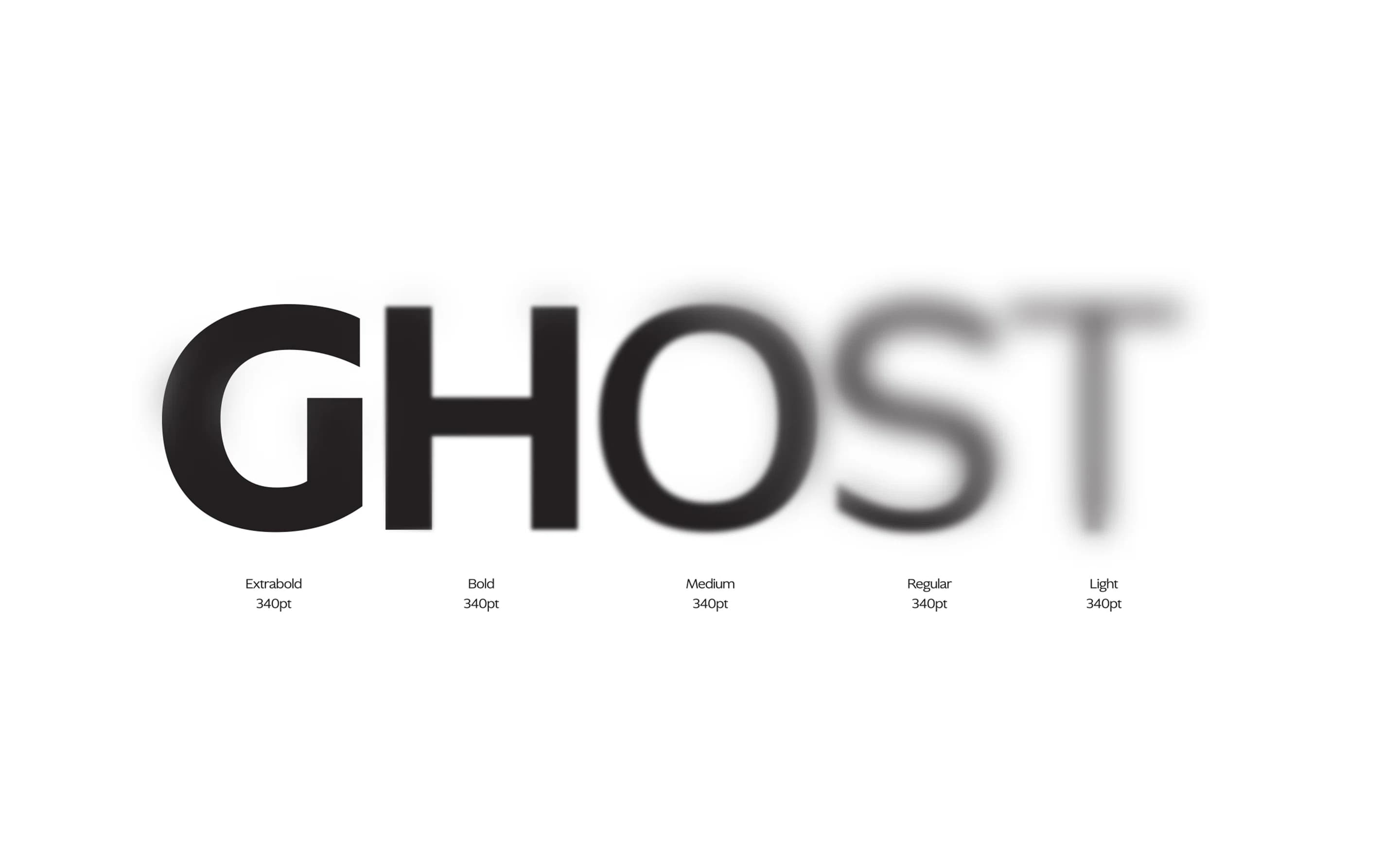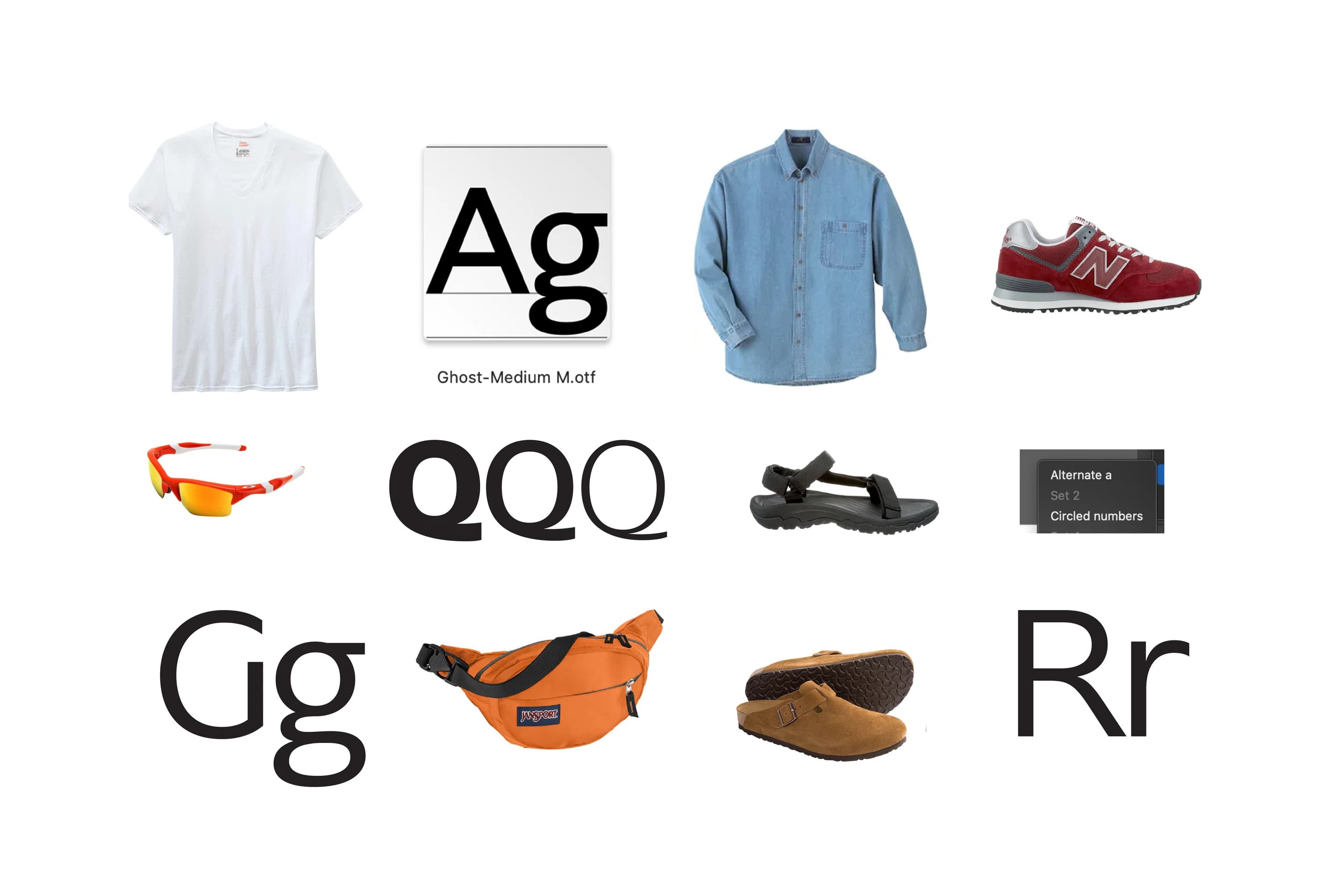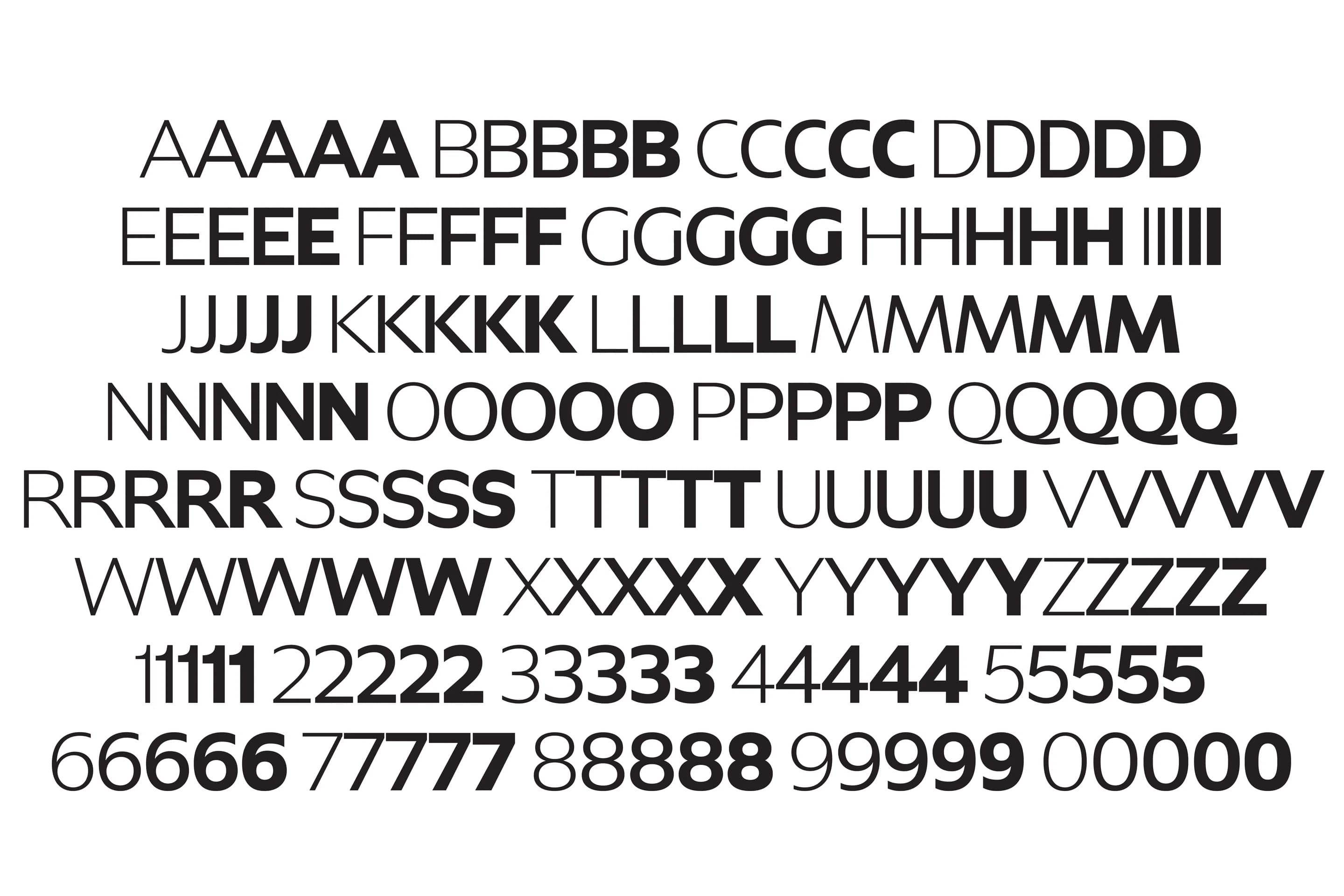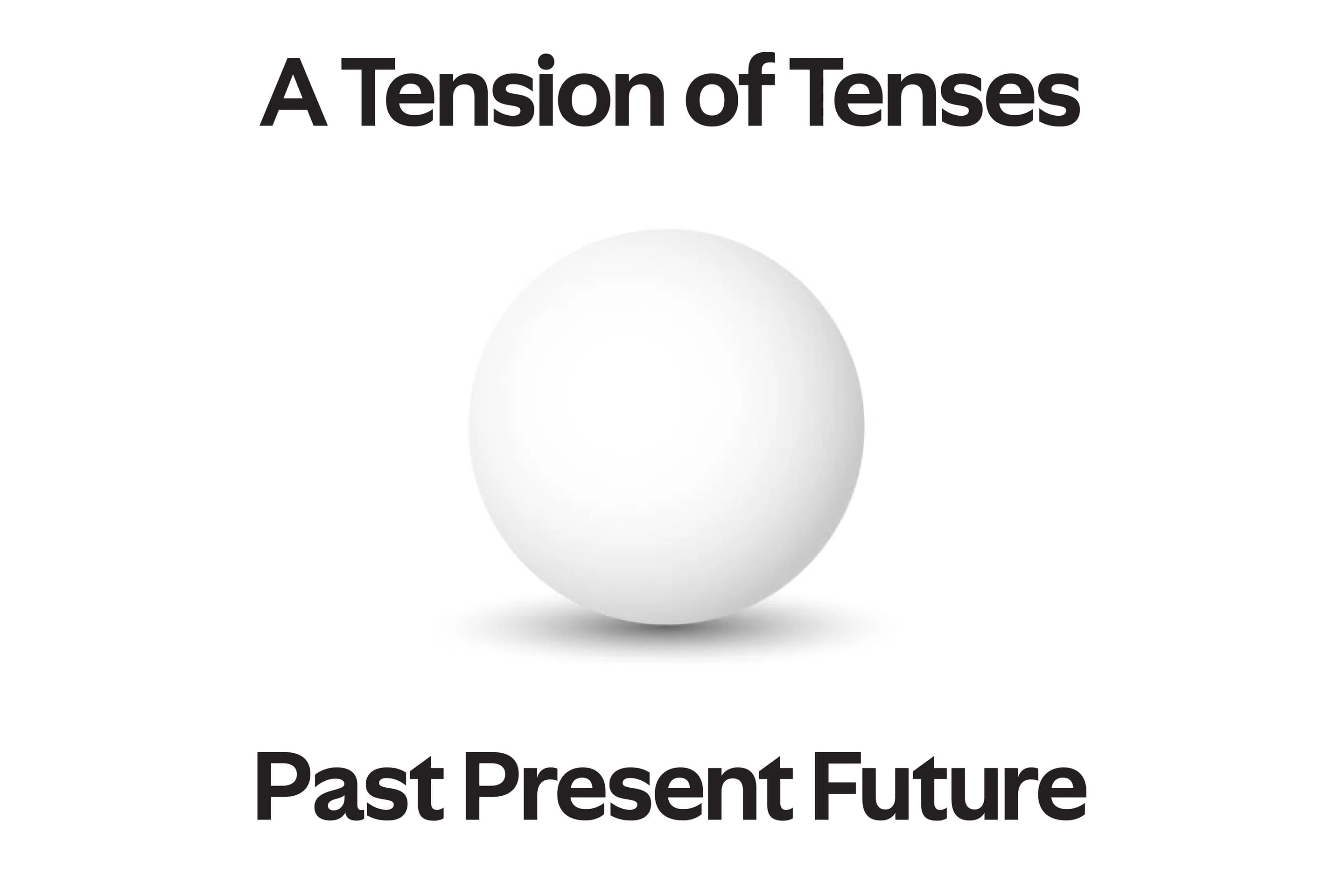
Basic and adaptable, Ghost is a critical albeit humorous adaptation of the previously “stale” humanist sans.
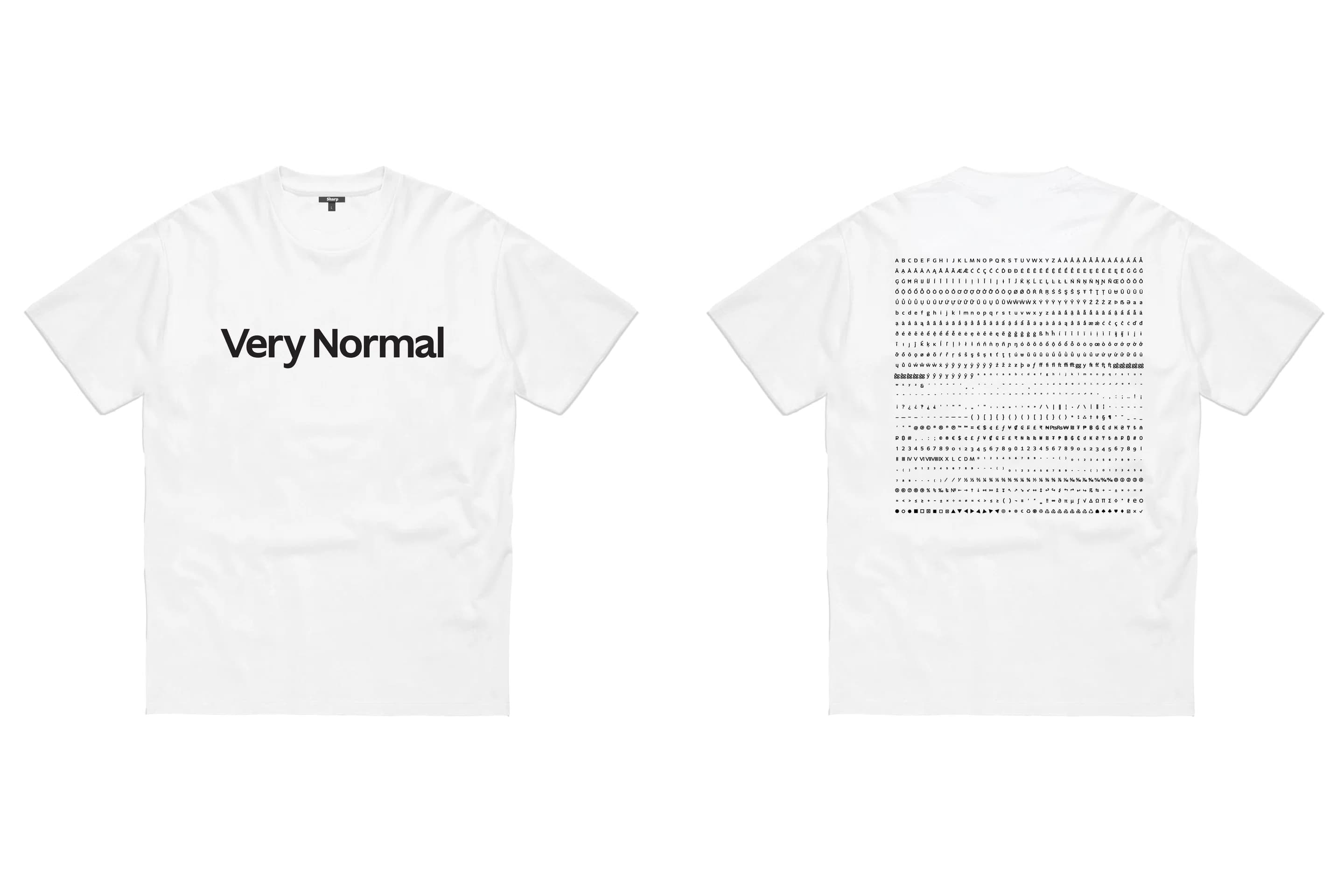
If something was described as ‘normal’ you probably wouldn’t think much of it. But then, what with the arrival of normcore a few years back and the increasing thirst for approachability and adaptability, being ‘normal' has become quite the thing. In fact, there’s a new normal in town – one that’s nuanced, complex and led by It’s Nice That regulars Sharp Type and its newest typeface Ghost.
Designed by Lucas Sharp and displayed with humorous art direction conceived by Justin Sloane, Ghost is a critical and considered take on the humanist sans genre and the concept of normalcy. “Ghost is a back-to-the-roots take on the humanist sans genre and a meditation on the ephemeral nature of normalcy,” says Lucas. “We all felt strongly that so much of the driving force of this process was about nostalgia and, subsequently, a reaction against it.” Design director Lucas co-founded the foundry alongside CEO Chantra Malee in 2015, with their first full-time employee, technical director Connor Davenport, joining in the summer of 2017. The team comprises eight full-time members, including the two most recent: Theodore Jahng and Zyanya Rodriguez. All of whom are located across the globe from New York City to LA, Marin County to Madrid and Nantes to Hong Kong, operating remotely ever since the pandemic.
When designing Ghost, the team decided to address the humanist sans genre because, in their words, it "is sort of a mess” due to it not having any set design standards. Theodore adds: “We likened it to a floating signifier, wherein everyone sees something different.” This led the foundry to design Ghost as a form of critical engagement. Sharp Type's plans to mix up the typeface involved pulling from a range of models and eras, “codifying them for the current moment”. The type design takes a deep view through typographic history from a technical standpoint, from Roman inscriptional lettering, Edward Johnston’s eponymous typeface (1916) to Optima (1958) by Hermann Zapf. This is how Ghost was formed. In the art direction, the viewer will spot all sorts of cultural reference points: from a Dreamcast to the DeLorean – which references the time machine in Back to the Future – to Tevas, a 90s American norm core staple that every dad and style-conscious person has in their wardrobe. Ghost also touches on Web 1.0 aesthetics and "the critical engagement represented by normcore”, explains Theodore.
The key element that makes Ghost so successfully normal is its adaptability. “Its DNA is neutrality and so it can function in any context,” explains Lucas. “It’s utilitarian but it has a warm and striking personality, so it will blend seamlessly within different types of content while elevating the overall application by virtue of its design.” Much like the versatility of the T-shirt, Ghost can be paired with pretty much anything: long skirts, shorts, chaps. The only difference – sort of – is that Ghost will “beautifully” appear on the web, just as much as it will on printed matter and on signage. “That said,” continues Lucas, “it’s hard to be prescriptive about how a font gets used. At the end of the day, we hope to be inspired!”
Not only has the arrival of Ghost given the previously “stale and stagnant” humanist sans genre a refreshing update, it’s also set a new standard for it. It’s given the humanist sans a new lease of life "by conveying the spirit of the human hand in the letterforms through representation," despite its long history entrenched in the familiar. And, in the very near future, the foundry plans to release Ghost Text – an expansion of the Ghost family with all the genetic idiosyncrasies, designed by My-Lan Thuong. “We hope people will simply look at Ghost and immediately recognise its potential in just about any context,” Lucas says. “But for those who take the extra step to read about our process, we’re hopeful that Ghost functions as a window into a more critical and investigative view of the craft as a whole.”